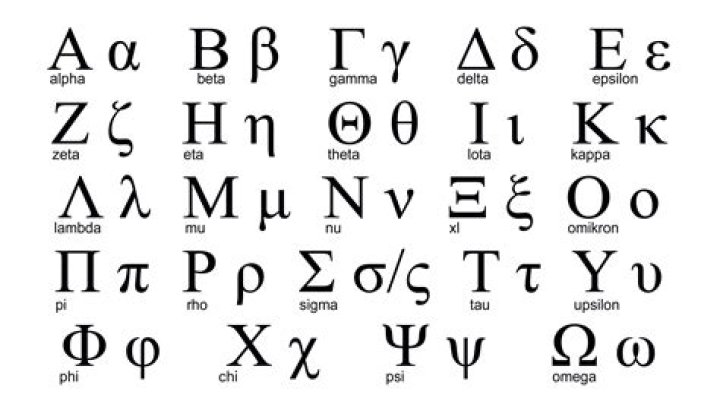
However, at least three of the other most common (and attractive) fonts from the Microsoft packages do support polytonic Greek: namely, Palatino Linotype, Arial Unicode MS, and Lucida Grande (Mac).
What font is ancient Greek?
Polytonic fonts for ancient Greek For most purposes Gentium (basic) is recommended.
What are famous fonts support Greek?
What is the Greek font?
Greek Font. There are many fonts that include Greek characters . Many are widespread in use, such as Arial and Times New Roman, while others cover more specialized needs. In Greece, a society was founded in 1992, called the Greek Font Society , aiming at improving the standard of Greek digital typography.